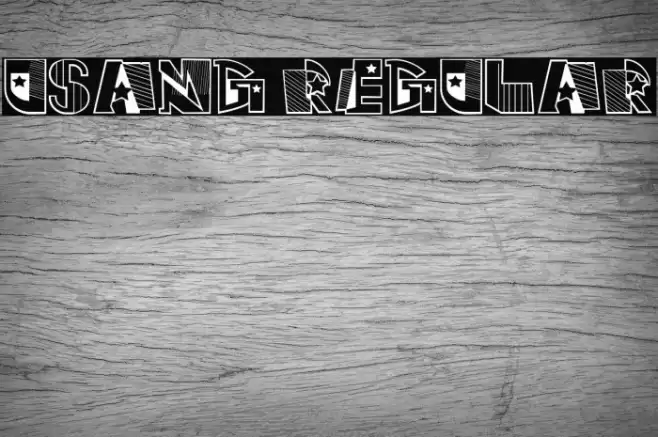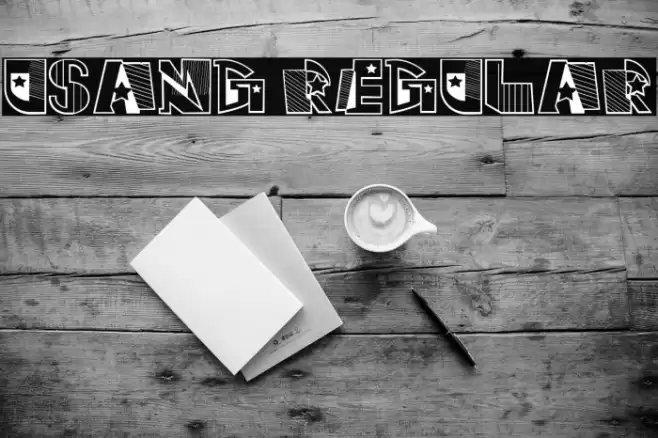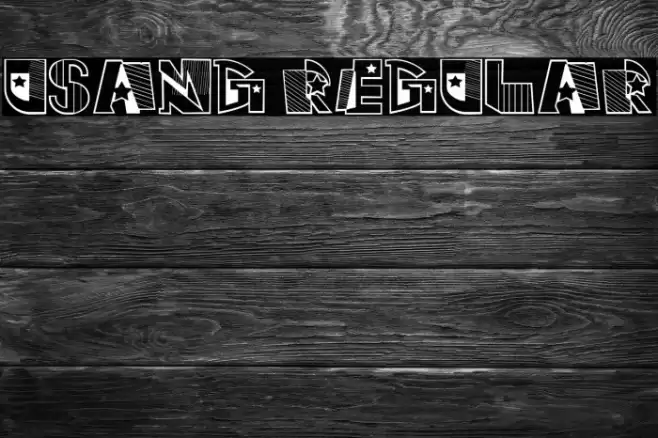
Usang Regular Font
Usang Regular Description
This font features a playful and decorative style with each letter incorporating unique patterns and shapes such as stars, stripes, and geometric elements. The bold outlines and filled patterns give it a dynamic and eye-catching appearance, making it ideal for creative and fun projects. The uppercase letters are particularly striking, with each character having its own distinct design, adding to the overall whimsical and artistic feel of the typeface.
A playful and decorative font with unique patterns and bold outlines from Decorative fonts.
- Proposed Projects: Ideal for children's book covers, party invitations, posters, and any project needing a fun and artistic touch.
- Contrast: High